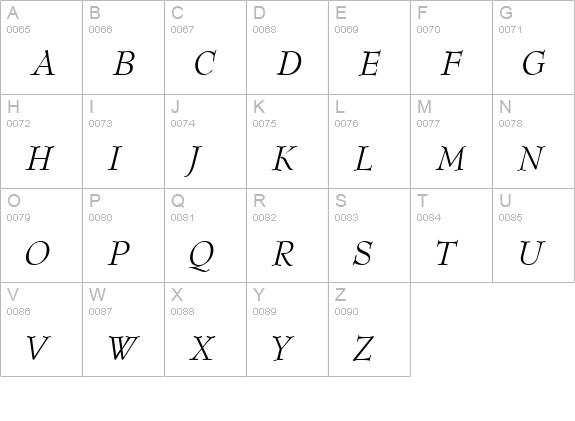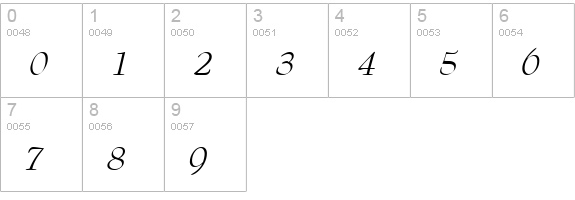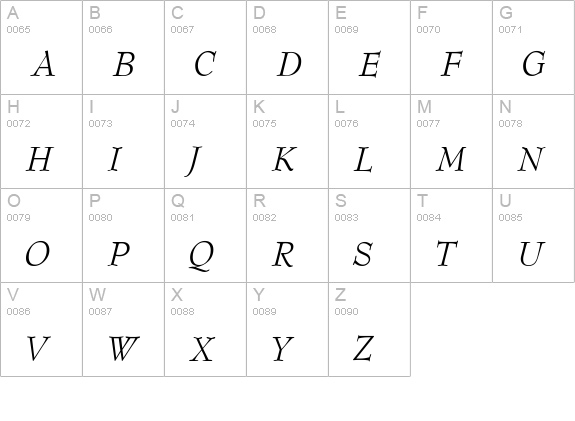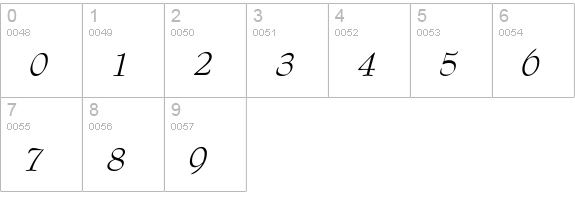
Bernadette kursiv Font Details
Bernadette kursiv font is a stunning and elegant typeface that exudes sophistication and charm. Its delicate curves and graceful lines make it perfect for adding a touch of class to any design project. Whether you're working on invitations, logos, or branding materials, Bernadette kursiv font will elevate your work to the next level. The best part? Bernadette kursiv font is completely free to download at FontsMarket.com. You can easily access this beautiful typeface and incorporate it into your projects without any cost. Don't miss out on the opportunity to enhance your designs with the timeless beauty of Bernadette kursiv font. Download it today and let your creativity shine!